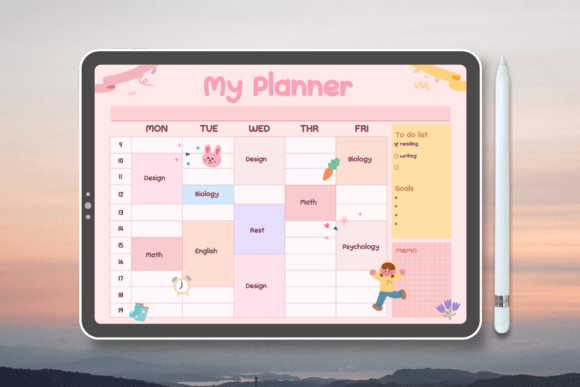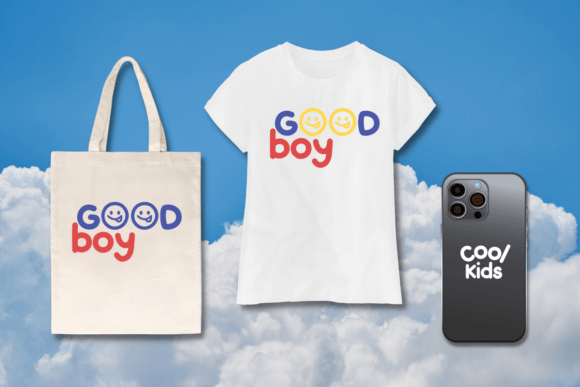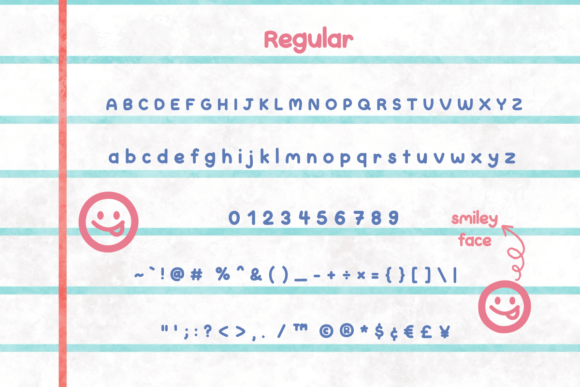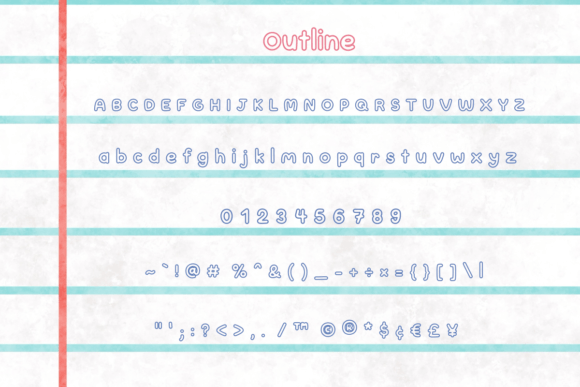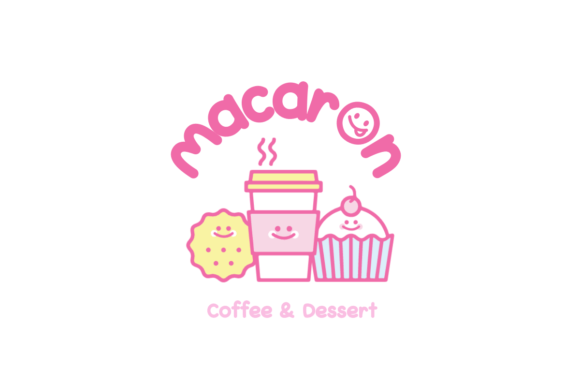
Introduction to Cute Note Font
Cute Note is a cute and playful display font that brings a playful feel to your designs, complete with a cute smiley face gimmick.
This font is perfect for a variety of design projects, including notes, logos, quotes, greeting cards, posters, t-shirts, and much more Plus, as a special bonus, you’ll receive 25 cute note PNG and SVG files that can be used for decorating or creating memo notes.
Key Features of Cute Note Font